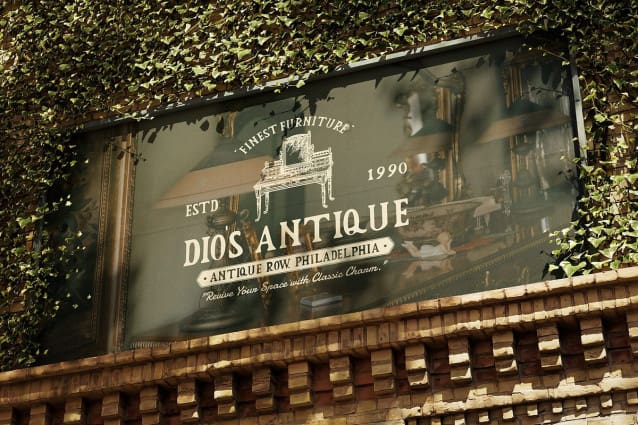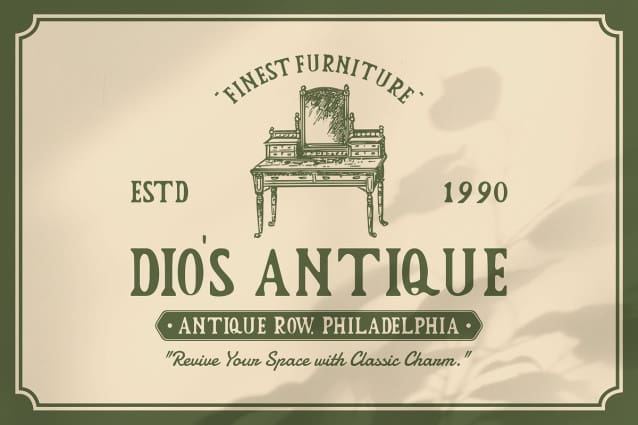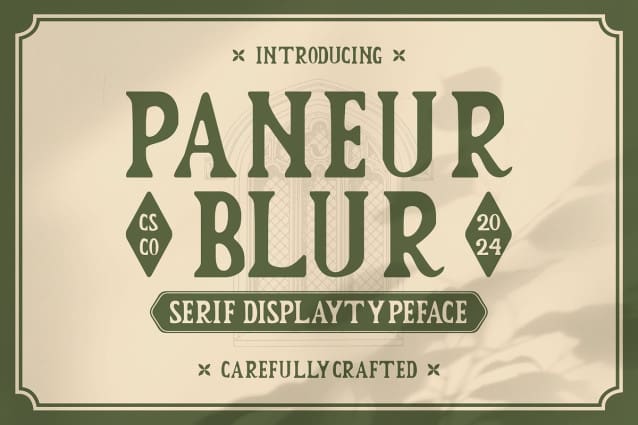
Paneur Blur Font
Paneur Blur Font is a unique serif font that seamlessly combines playful and cheerful elements, resulting in a lively and inviting design. With its informal lines and whimsical shapes, this font creates a fresh impression that resonates with creativity and joy. The charming letterforms are perfect for projects seeking to establish a vibrant atmosphere, making it a delightful choice for various applications.
Artistic and Modern Dimension What sets Paneur Blur apart is its distinctive blur effect, which adds a layer of visual intrigue and modernity. This innovative dimension gives the font a dynamic quality, as if the letters are in motion or softly out of focus, inviting viewers to engage more deeply with the text. This artistic feature enhances its appeal, making it suitable for designs that aim to convey both elegance and a contemporary flair.
Versatile Applications Ideal for a range of creative projects, Paneur Blur shines in contexts like event branding, editorial design, children’s products, and marketing materials. Its playful nature makes it particularly well-suited for designs that celebrate creativity and individuality, while the blur effect elevates the overall aesthetic, adding depth and sophistication.